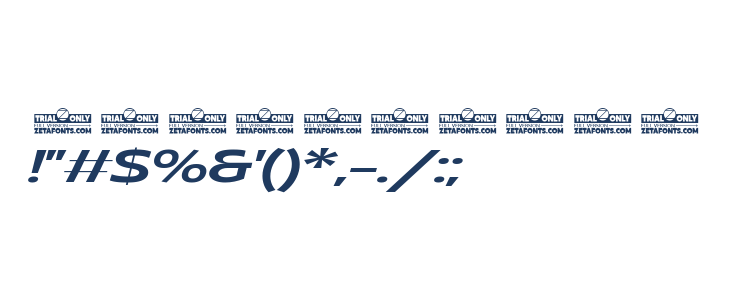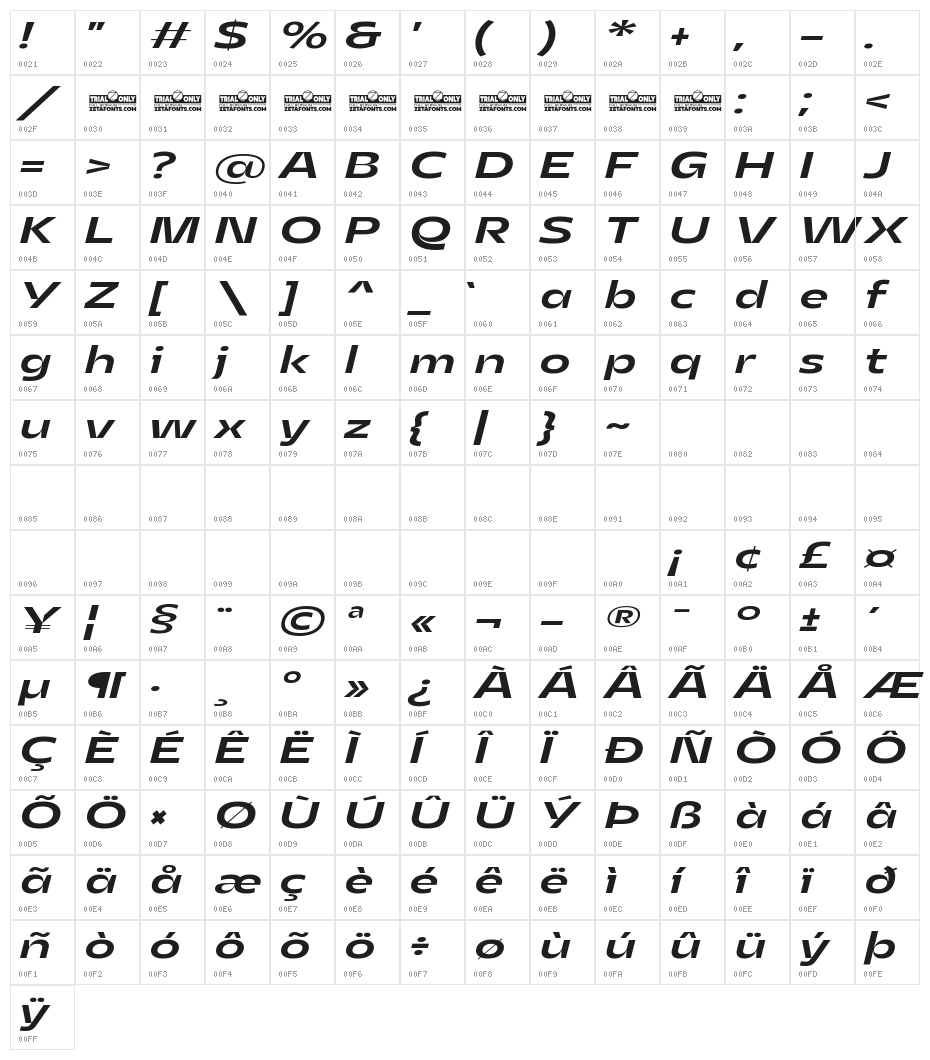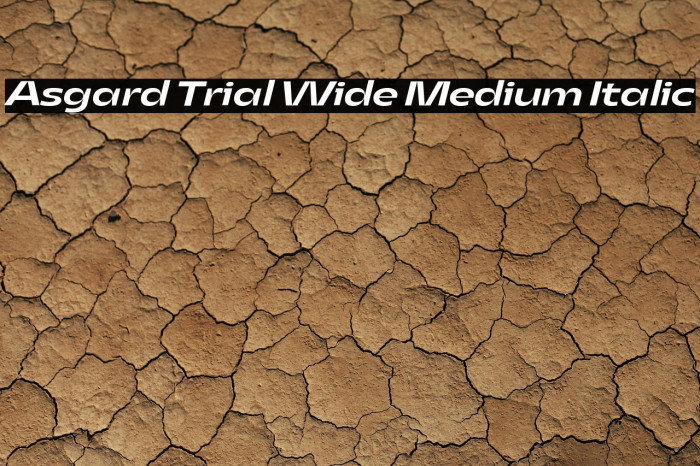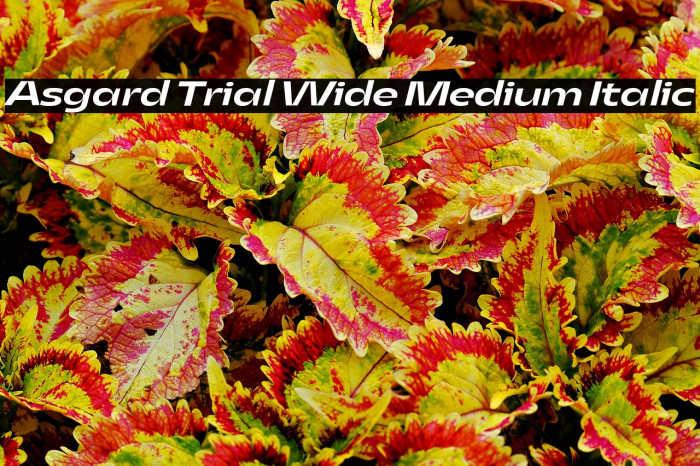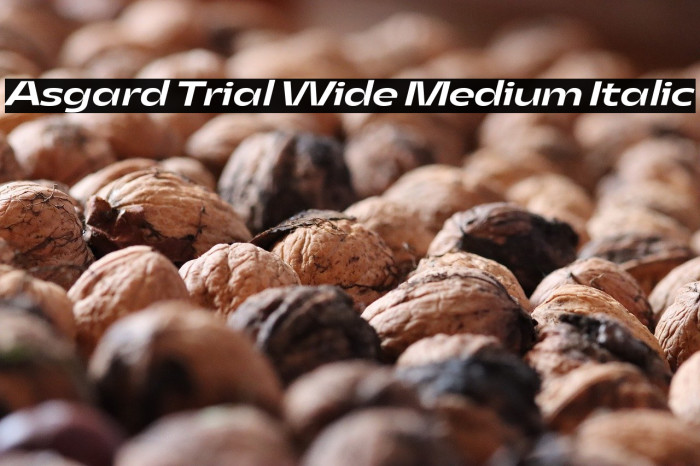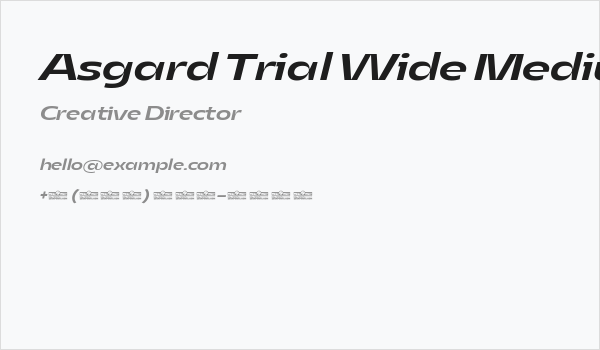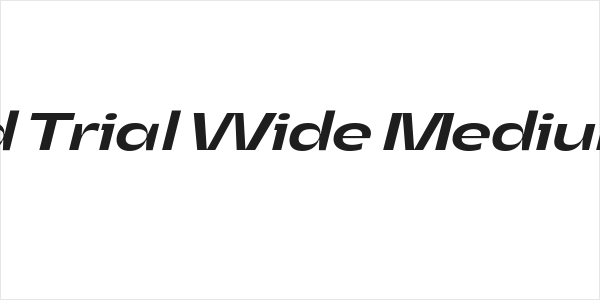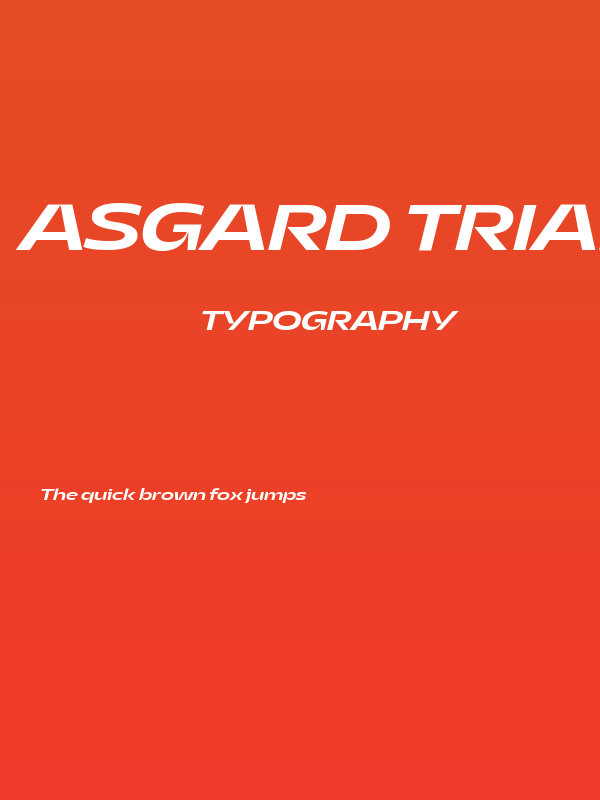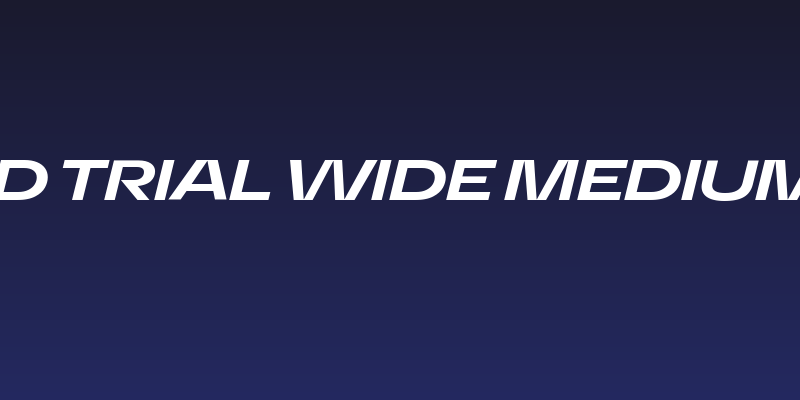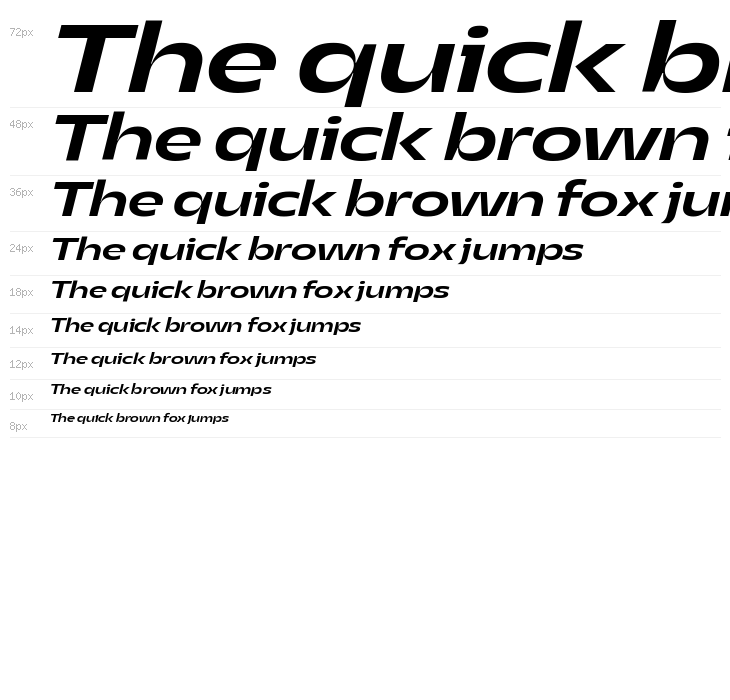
Asgard Trial Wide Medium Italic Font
Asgard Trial Wide Medium Italic Description
This font exhibits a sleek and modern design with a distinct italic slant, giving it a dynamic and forward-moving appearance. The characters are wide, enhancing readability while maintaining a stylish aesthetic. The medium weight provides a balanced look, neither too light nor too bold, making it versatile for various applications. The uppercase and lowercase letters are well-proportioned, and the numerals and special characters are crafted with precision, ensuring consistency across the typeface. This font's contemporary style is suitable for projects that require a clean and professional look.
| Proposed Projects | Ideal for branding, advertising, and editorial design projects that require a modern and dynamic appearance. |